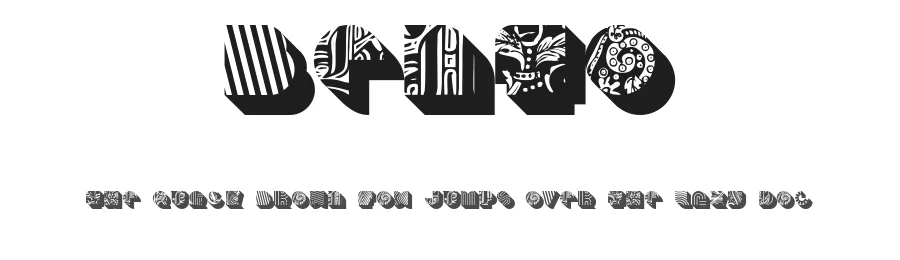
About Gaza Font
To immortalize the most resilient nation in the world and shed light on its unrevealed stories, the Gaza Font was created.
Every letter and number are the beginning of a story little-known, now revealed and eternalized. Uncover, use and share the Gaza Font; because what has been written can never be erased.
Gaza Font is a decorative font that shines as a display or heading face. Pair it with a clean sans-serif or serif font for body text β the contrast creates a clear hierarchy while the two styles stay balanced and easy to read.
Gaza Font
by ImpactBBDO